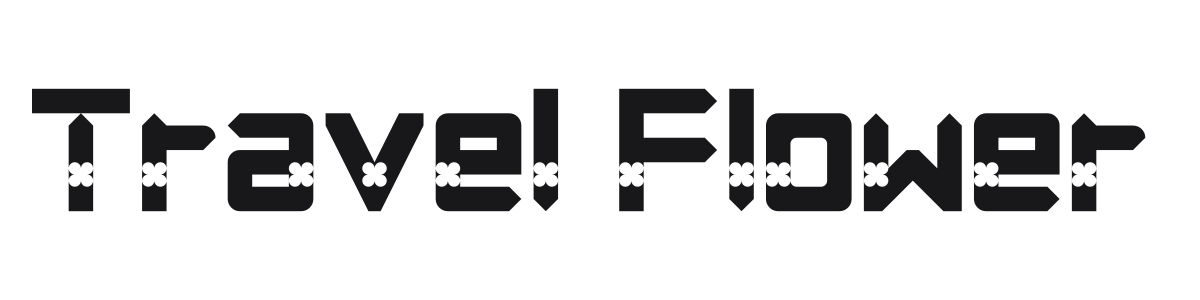
Travel Flower
by Vanessa Wang
Travel Flower is a heavy block sans-serif built around a distinctive detail: small cross-shaped cutouts at stroke joints that give the font its floral character. The letters are chunky and modular with softly squared proportions. It works best large, where those decorative notches read clearly and the design's personality comes through.